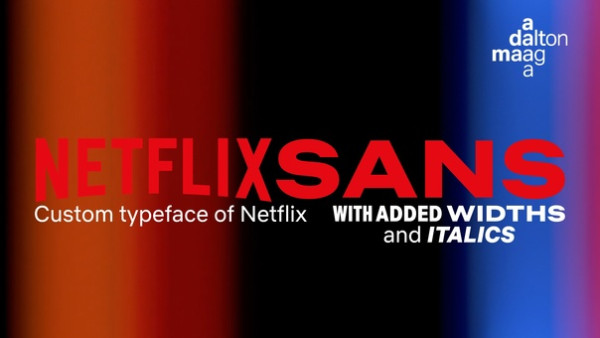
Netflix Sans Font
Netflix Sans Font – Corporative Font Family by Dalton Maag. This font was created for all forms of business and branding such as clothing, logos, skate boards and others according to your needs.
Netflix Sans Font, is a sans serif  stunning when combined or separately. This sans serif font style is legible and stunningly designed.